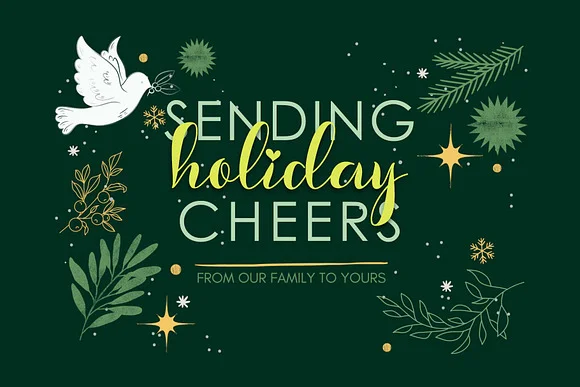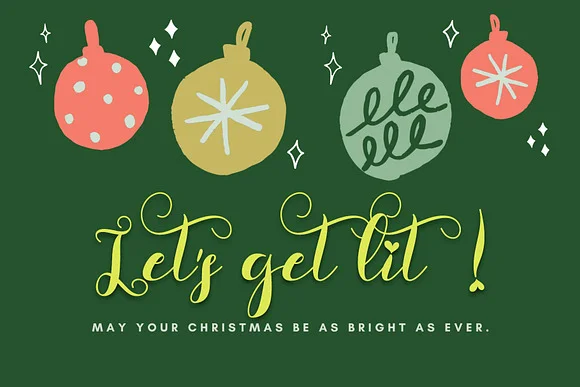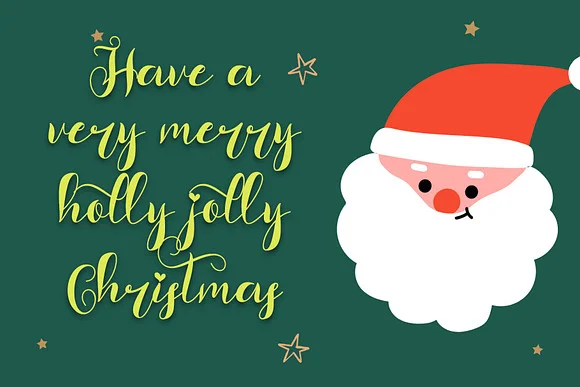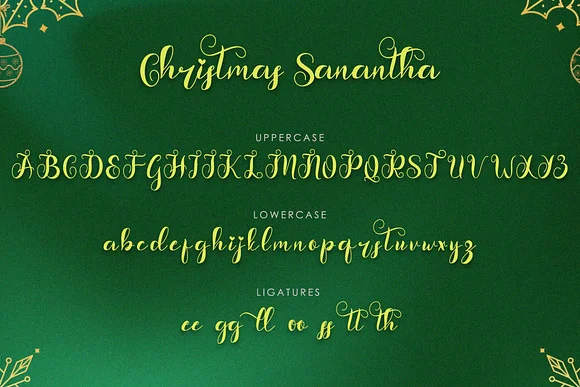
Christmas Sanantha Font
This charming font is perfect for personalized Christmas cards, intimate holiday letters, family Christmas newsletters, custom gift tags, seasonal name cards, personal Christmas invitations, handmade holiday crafts, boutique Christmas branding, artisanal seasonal products, and heartfelt Christmas messaging materials.
Christmas Sanantha Font is exciting because it embodies the personal warmth and intimate charm of handcrafted Christmas communications, combining elegant femininity with festive seasonal spirit in a way that feels both sophisticated and approachable. The font features gracefully flowing letterforms with gentle curves and delicate details that suggest the careful penmanship of someone writing heartfelt Christmas wishes to beloved family and friends. Each character showcases refined elegance with subtle flourishes that add festive charm without overwhelming the text's readability and personal touch. The design captures the essence of Christmas intimacy, evoking cozy fireside moments and tender holiday memories shared among loved ones, making it perfect for projects that require both elegance and emotional connection.
The Christmas Sanantha Font family includes personal style variations: Regular, Bold, Light, Script, and Ornate versions. The collection features special intimate elements including delicate swashes, personal flourishes, handcrafted details, and warm seasonal ornaments. Additional components include cozy borders, intimate frames, family-themed decorations, and heartfelt ornamental designs that enhance the font's personal Christmas appeal and create cohesive intimate holiday themes.
Crafters and personal designers will find Christmas Sanantha Font to be an invaluable tool for creating meaningful holiday communications that convey genuine warmth and personal connection. This beautifully crafted font transforms ordinary Christmas text into intimate messages that resonate with recipients on a deeply personal level, perfect for projects that celebrate the close relationships and cherished moments that make Christmas special.
The typeface includes comprehensive character support with personal styling elements that maintain excellent readability while conveying the warmth and intimacy of personal Christmas correspondence. The font's elegant design ensures beautiful results across both handmade crafts and digital applications.
Perfect for personal Christmas projects, boutique holiday brands, artisanal Christmas products, and intimate seasonal communications, this font delivers authentic emotional impact that communicates love, warmth, and the precious personal connections that make Christmas the most wonderful time of the year.